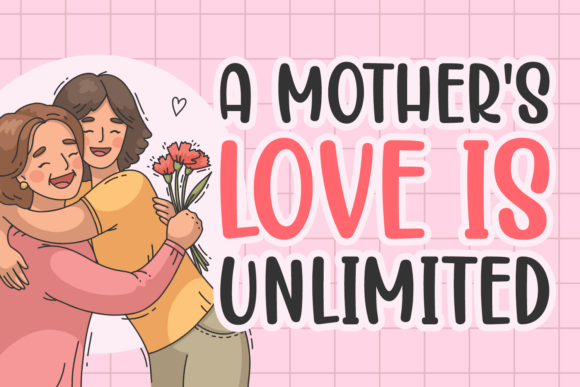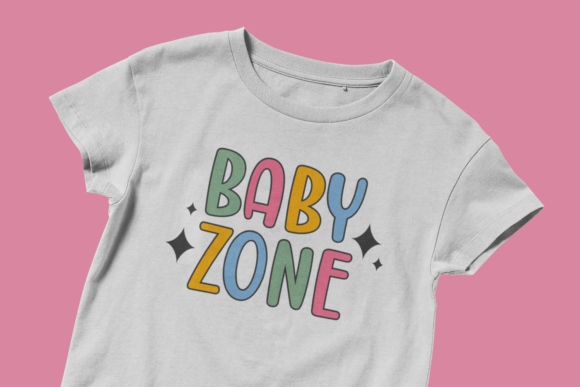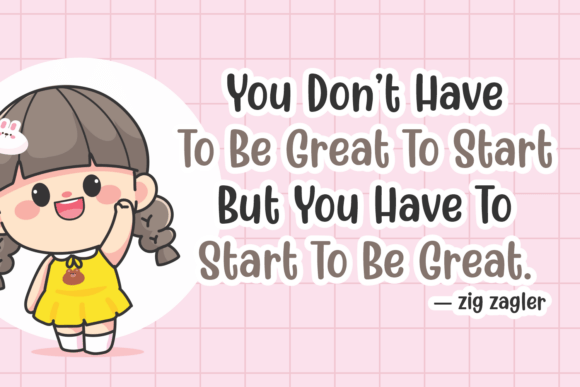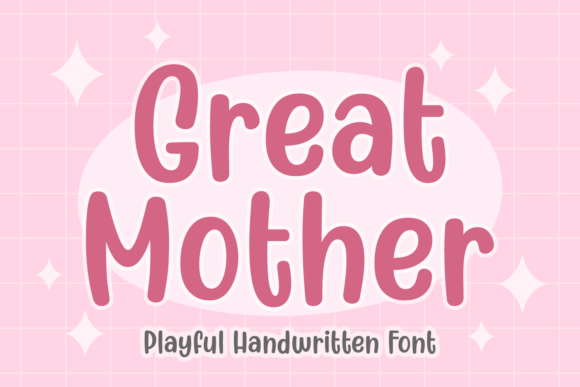
Introduction to Great Mother Font
Great Mother is a charming font that brings a warm, affectionate feel to your love-filled messages.
With its cute and inviting design, this font is ideal for creating romantic Valentine’s Day cards, notes, or any project that could use a touch of sweetness It’s a playful and cozy style that beautifully conveys emotion, making it a perfect choice for sharing love and happiness through your designs.
Key Features of Great Mother Font